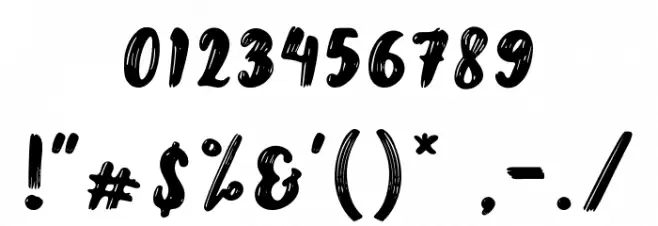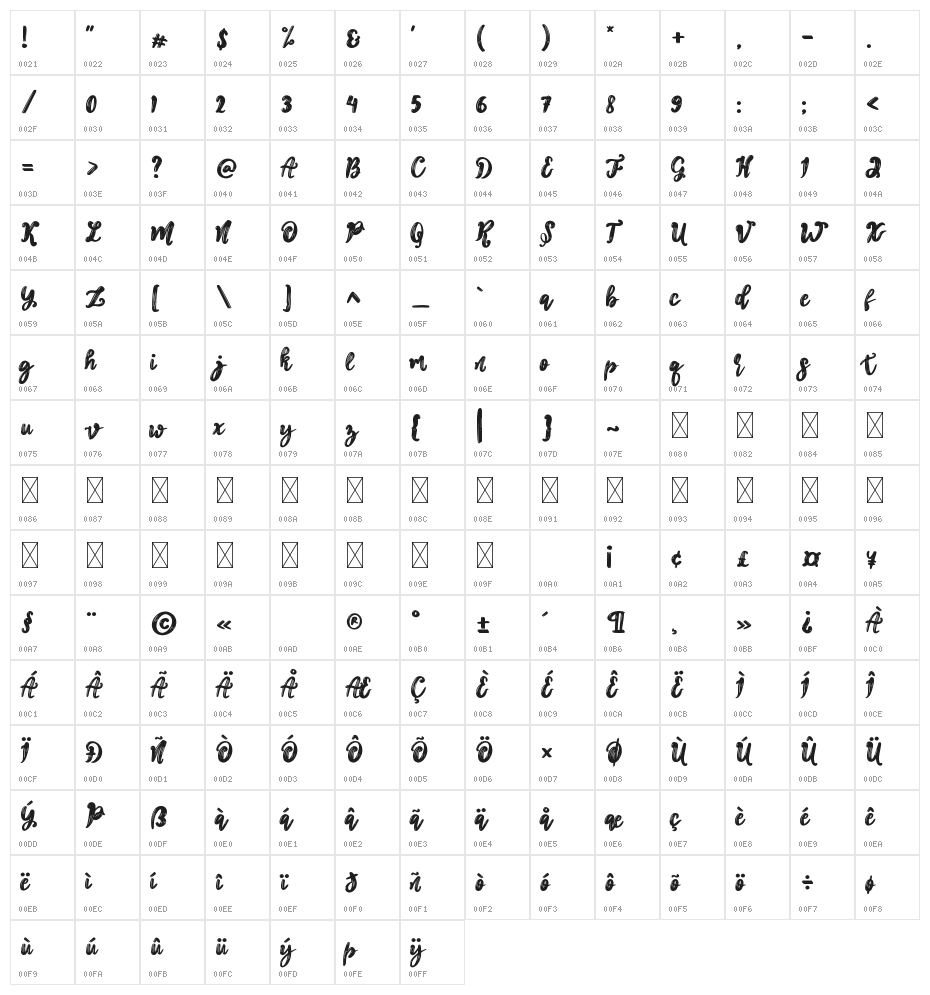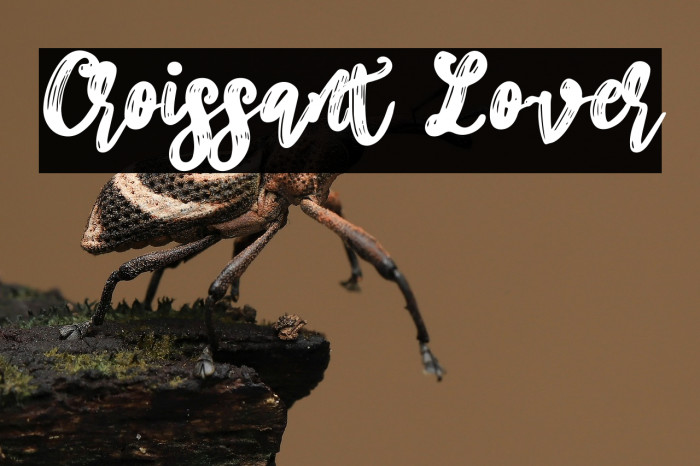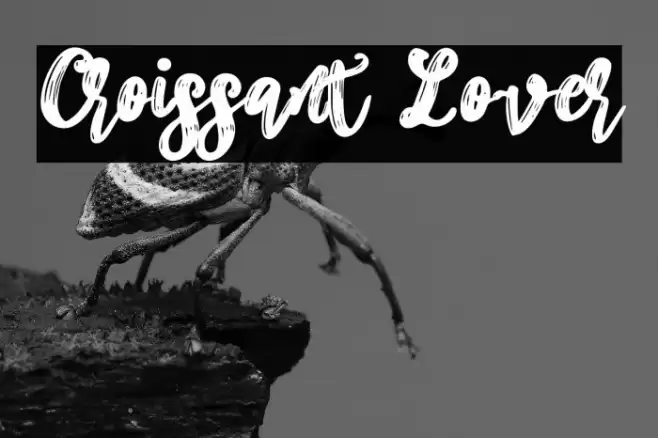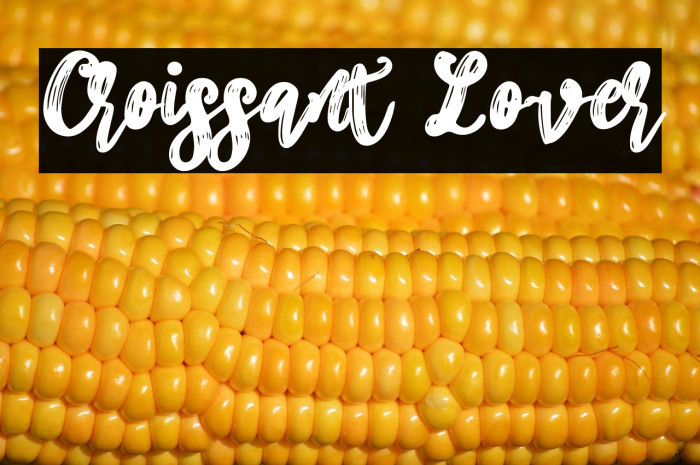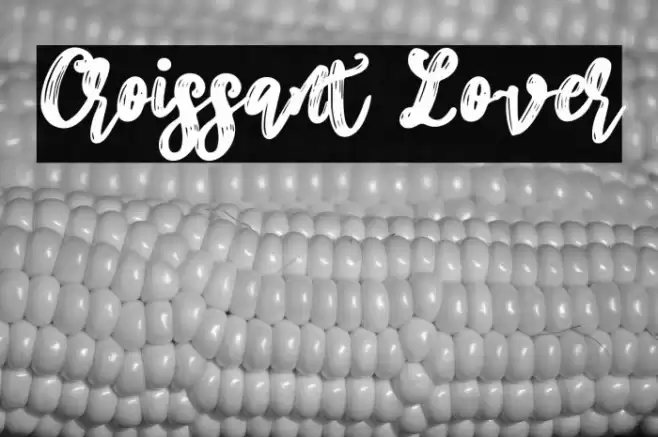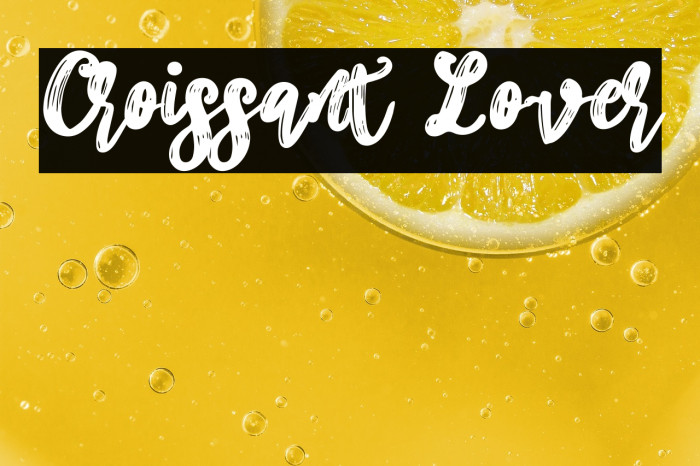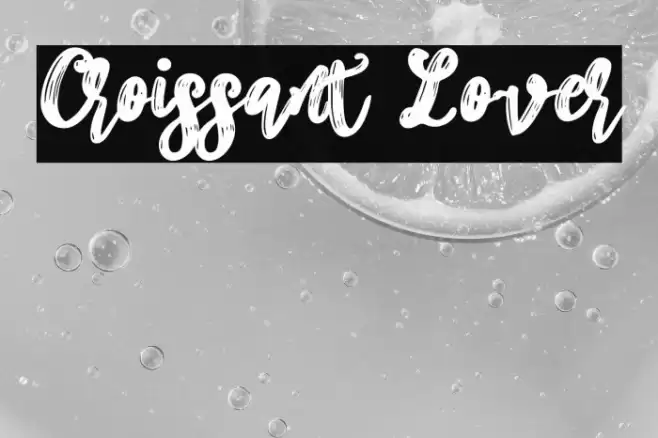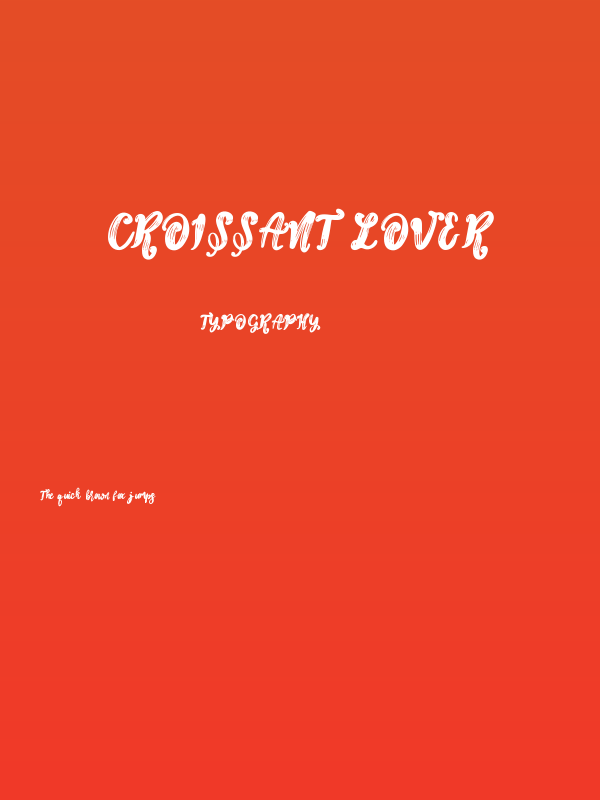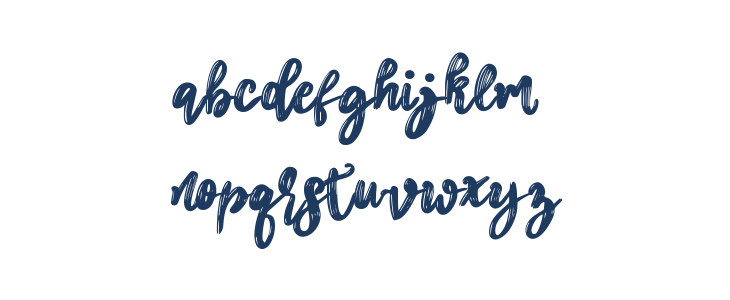
Croissant Lover Font
Croissant Lover Description
This font features a bold, brush script style with a playful and artistic flair. The strokes are thick and textured, giving a hand-painted appearance that adds a dynamic and lively feel to the text. Each character flows smoothly into the next, creating a sense of continuity and movement. The uppercase letters are slightly more formal, while the lowercase letters maintain a casual elegance. Numbers and special characters are consistent with the overall style, making them suitable for a variety of creative applications. The font's unique texture and bold presence make it ideal for eye-catching designs.
| Proposed Projects | Ideal for branding, packaging, posters, and invitations where a lively and artistic touch is desired. |